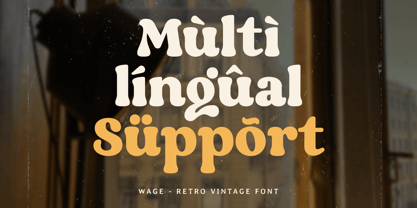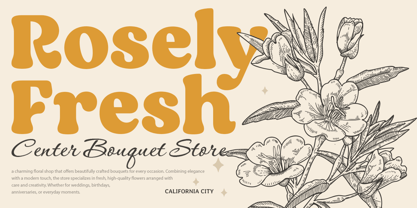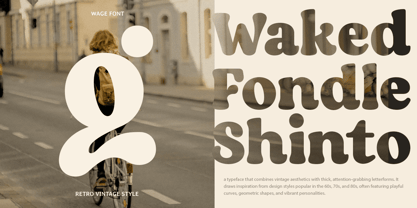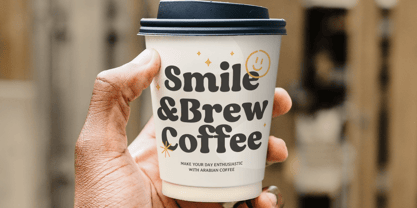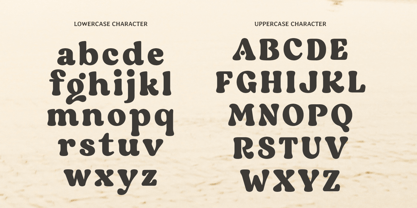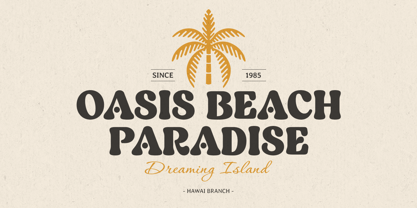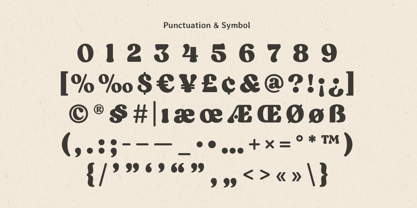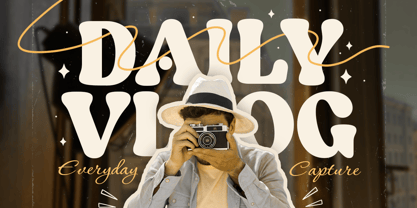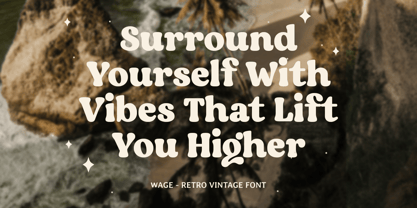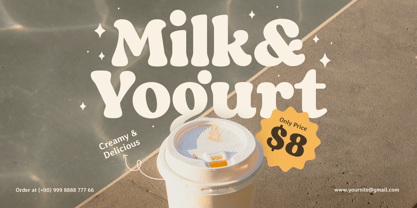
Wage is a retro vintage font inspired by classic typography from the past, bringing a touch of nostalgia, warmth, and authenticity to your designs. With its bold letterforms and rustic aesthetics, this font is perfect for branding, posters, packaging, signage, and editorial layouts that need a timeless appeal.
Designed to evoke the charm of vintage advertisements, old-school product labels, and classic signage, Wage blends strong typography with subtle handcrafted details, making it a great choice for cafés, barbershops, brands, and retro-themed projects. Its bold strokes and unique letterforms ensure high readability while maintaining a distinctive and eye-catching style.
Step into the past with Wage, the perfect font for giving your designs a bold and nostalgic vintage look.
Wage - Retro Vintage Font Features:
Classic bold vintage typography
Ideal for branding, posters, and packaging
Punctuation, numbers, and symbols included
Uppercase and lowercase letters
OpenType features for unique styling options
Multilingual support for:
Afrikaans, Albanian, Basque, Breton, Catalan, Croatian, Czech, Danish, Dutch, English, Estonian, Finnish, French, Galician, German, Hungarian, Icelandic, Indonesian, Irish, Italian, Latvian, Lithuanian, Luxembourgish, Maltese, Norwegian, Polish, Portuguese, Romanian, Slovak, Slovenian, Spanish, Swedish, Turkish, Welsh, and more.
Give your designs a bold and nostalgic feel with Wage—the ultimate retro vintage font for classic and timeless branding.